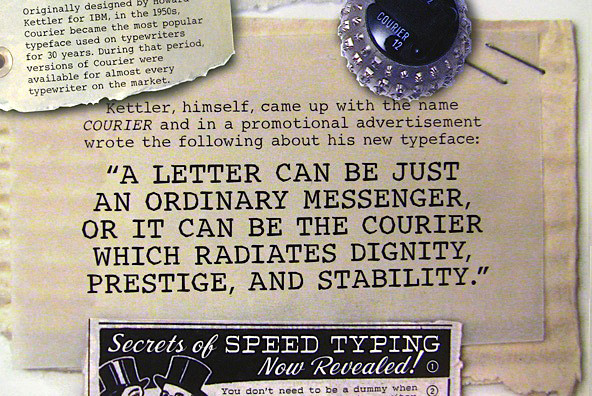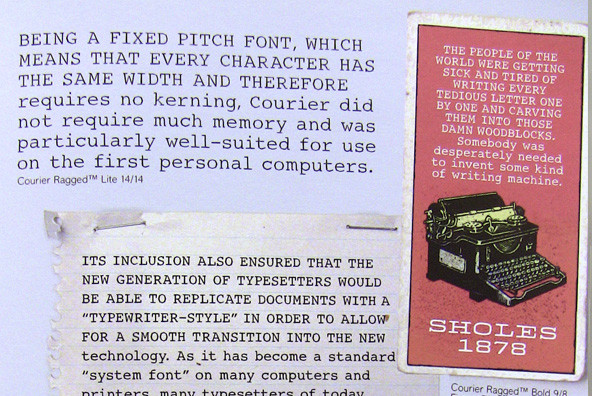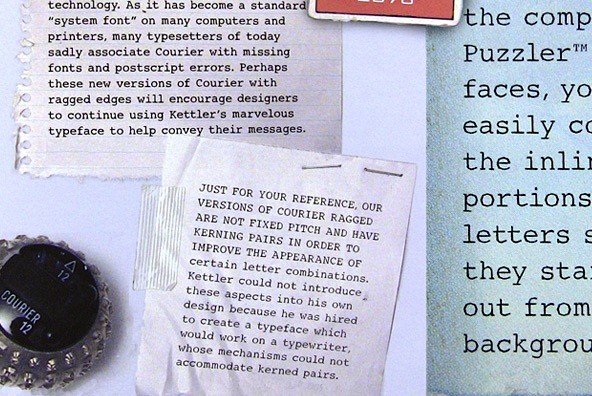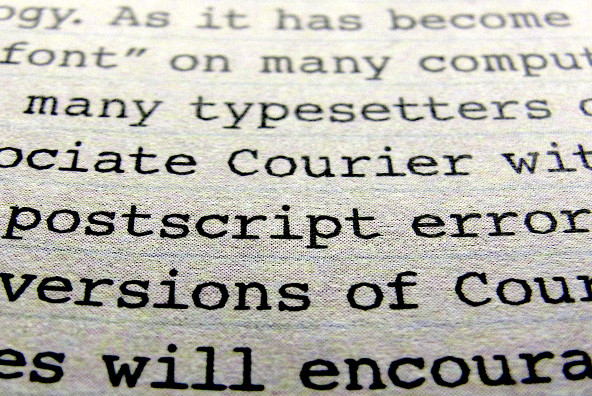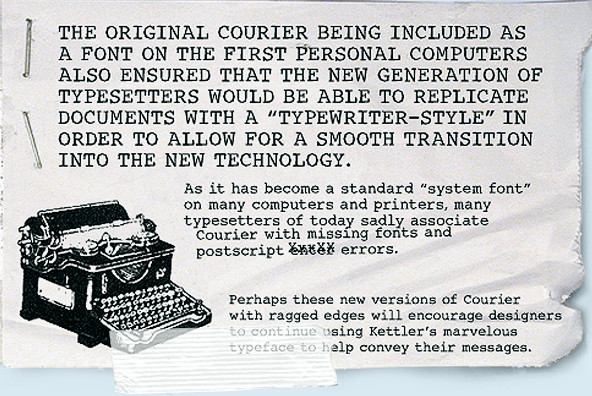
Courier Ragged
Originally designed by Howard Kettler for IBM, in the 1950s, Courier became the most popular typeface used on typewriters for 30 years. During that period, versions of Courier were available for almost every typewriter on the market. Kettler, himself, named the typeface and wrote a promo ad which said:
“A LETTER CAN BE JUST AN ORDINARY MESSENGER,
OR IT CAN BE THE COURIER WHICH RADIATES DIGNITY, PRESTIGE, AND STABILITY.”
Being a fixed pitch font, which means that every character has the same width and therefore requires no kerning, Courier did not require much memory and was desirable to be included on the first personal computers. Its inclusion also ensured that the new generation of typesetters would be able to replicate "Typewriter-looking" documents in order to allow for a smooth transition into the new technology. As it has now become a standard "system font" on most computers and printers, many typesetters of today sadly associate Courier with missing fonts and postscript errors. Perhaps these new versions of Courier with ragged edges will encourage designers to continue using Kettler’s marvelous design to help communicate ideas.
Courier Ragged is an attempt both to serve as a typeface which can recreate that "rough" typewriter feel of the past and also be used as a favourable contemporary face. The raggedness gives the characters a new flavour which is suitable today in a market seeking grunge and version faces.
Aside from the ragged edges, Howard Kettler's original design has been respected. Our versions of Courier ragged, however, are not fixed pitch, and have kerning pairs in order to improve the appearance of certain letter combinations. Kettler could not introduce these aspects into his own design because he was hired to create a typeface which would work on a typewriter, whose mechanisms could not accommodate kerned pairs.
NOT FIXED PITCH
Currently the only available version of the Courier Ragged™ family is not fixed pitch (i.e. it has been spaced and kerned to create the most pleasing visual effect.
ALTERNATE CHARACTERS
When using Courier Ragged™ at larger point sizes, you are likely to type words which use two or more of the same vowel characters. You might find that your design will look more dynamic if you use alternate versions of the duplicate letters. Because most of the accent characters in this family are slightly different from their unaccented root characters, you can use them whenever you require alternate vowels. After typing the accent character, in your page layout or illustration program, you can then draw a white box and place it on top of the unwanted accent.
COMPANION FACES
FULL CHARACTER SET
Each font in the Courier Ragged™ family has a full character set of 232+ letterforms, with all characters designed in the style of the font.